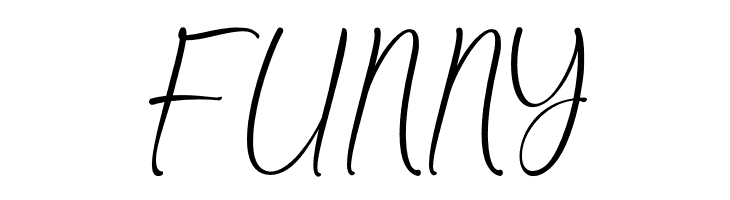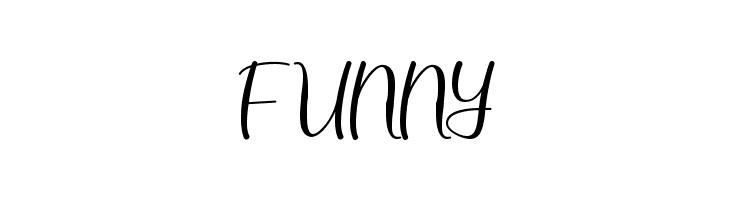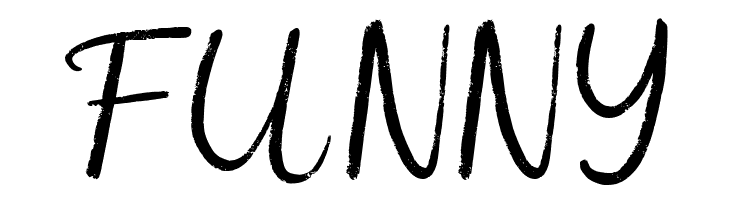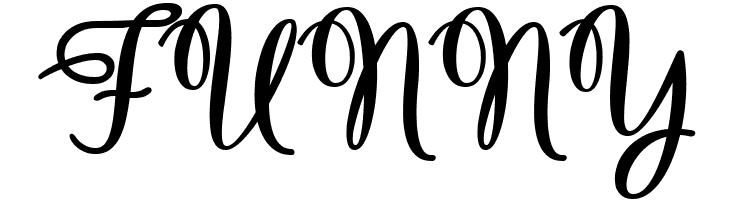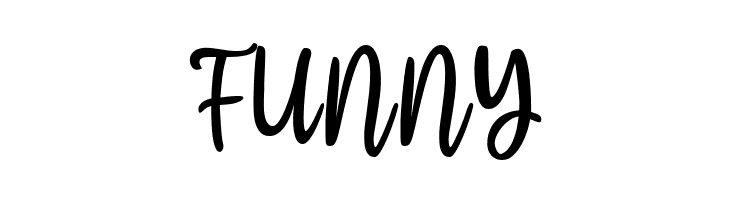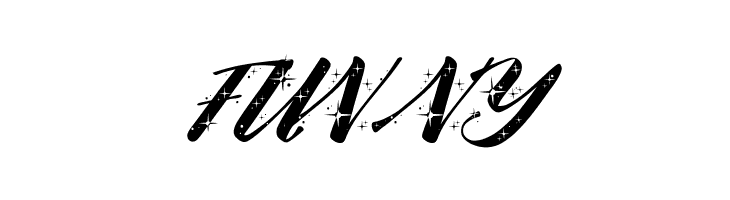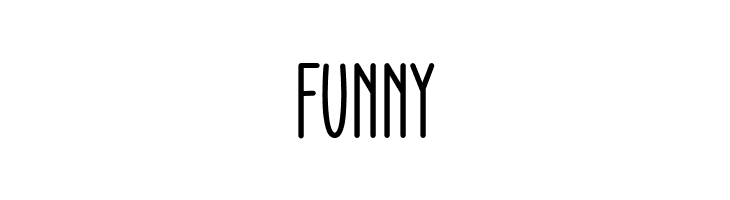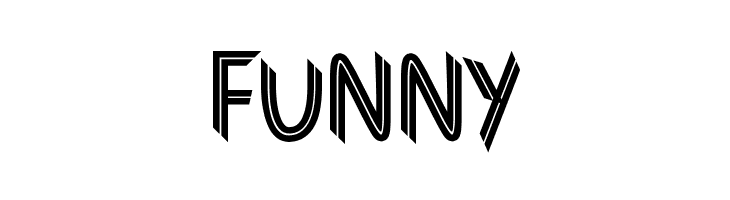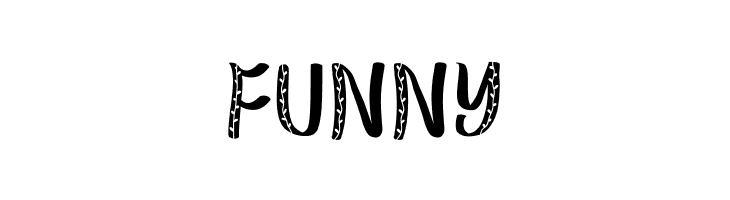
Whimsical, bold script with festive swashes and loops.
A festive and elegant script font with flowing, cursive letters and whimsical charm.
A playful and elegant script font with flowing, cursive letterforms.
A playful, festive handwritten script with bold, rounded characters.
Ornate script font with festive, swirling details.
A bold, handwritten script font with a festive and playful vibe.
A festive, cursive script font with bold strokes and elegant loops.
A festive, decorative script font with sparkling accents and elegant flourishes.
A lively and expressive handwritten font with fluid, dynamic strokes.
Bold, festive display font with Christmas-themed decorations.
A lively and expressive script font with flowing, cursive letterforms.
Decorative serif font with festive swashes and high contrast.
A bold, decorative font with a knitted sweater pattern ideal for festive themes.
A whimsical and elegant script font with a hand-drawn, calligraphic style.
A festive, leaf-patterned font with bold, rounded strokes and a playful style.
Ornate script font with festive, swirling embellishments.
A tall, slender, and whimsical font with a playful style.
A playful, tall, and narrow font with rounded edges and consistent stroke width.
A festive, decorative font styled like Christmas light bulbs, perfect for holiday-themed projects.
A festive, decorative font styled as Christmas lights, perfect for holiday themes.
A festive, hand-drawn font styled like Christmas light bulbs.
Playful, tall sans-serif with rounded terminals and festive style.
A playful, hand-drawn font with rounded, bold characters.
A fun, decorative font with a holiday-inspired, hand-drawn style.
A bold, decorative script font with festive swashes and rounded forms.
A whimsical, festive script font with elegant swirls and loops.
Bold, brush-style script font with energetic, festive strokes.
A bold, decorative blackletter font with intricate uppercase and strong lowercase forms.
Bold, playful script with hand-drawn, festive style.
A playful, handwritten-style font with tall, narrow letters and rounded edges.
Bold, decorative script with festive, hand-lettered style.
Casual handwritten sans-serif with rounded, playful forms.
A playful, cursive script font with a festive and elegant style.
A bold, decorative font with a festive, angular design.
Ornate, festive display font with swirls and bold strokes.